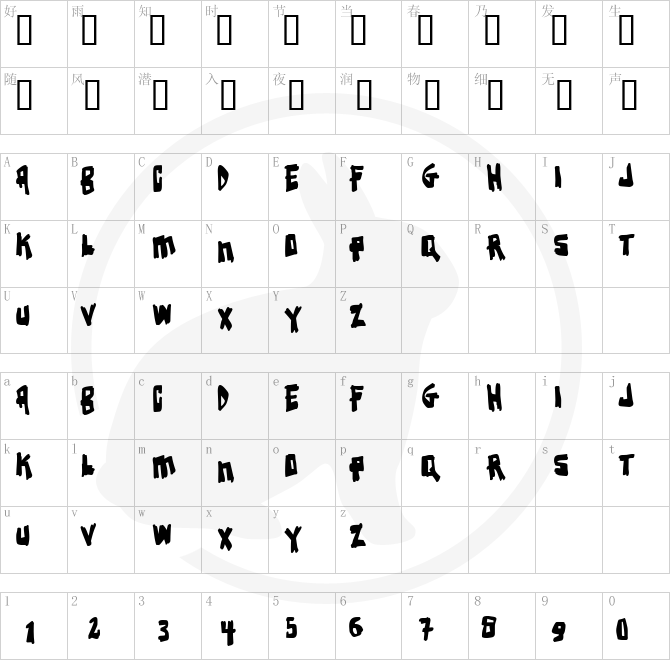
- Font Name:Earthquake
Earthquake.ttf is a very beautiful artistic font, Earthquake.ttf is widely used in the design and printing of various books and pictures,Earthquake.ttf has a strong visual impact,Earthquake.ttf is a commonly used font in newspapers, magazines and books, and is used in posters, e-commerce Poster design, store design, logo design, font design and other fields.Earthquake.